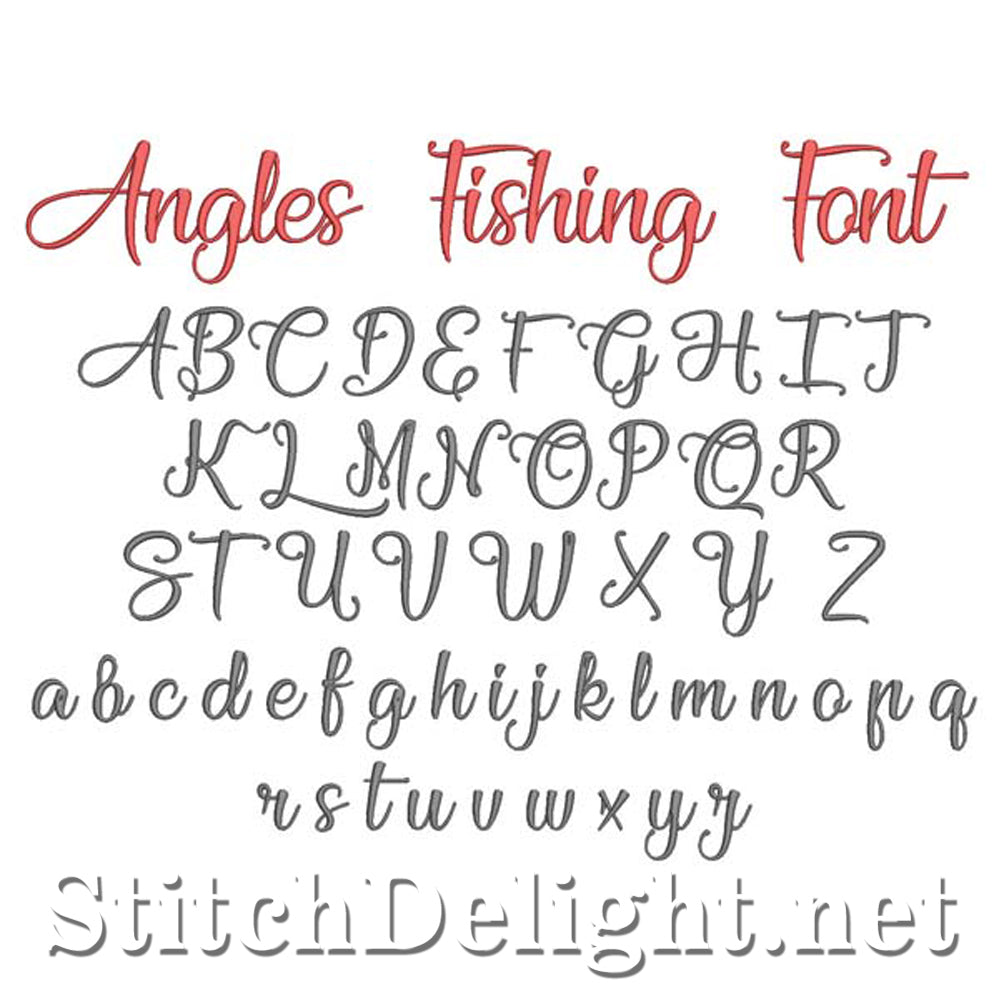
This lovely scroll like font, was digitized to match the Fishing font SDS1270 - This font includes both the upper and lower case letters . letter height for the capital letters is 2.15inch and small letters is just under 1 inch in height